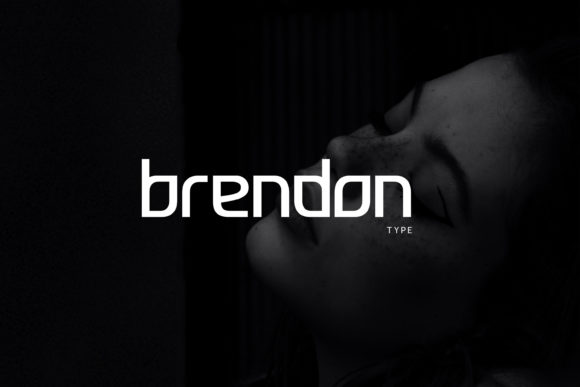
The Designer’s Delight: A Deep Dive into Brendon Font
I’ll never forget the time I was working on a project for a high-end fashion brand, and I was struggling to find the perfect font to match their elegant and sophisticated vibe. The client had a very specific idea of what they wanted, and I was determined to deliver. That’s when I stumbled upon Brendon Font, and it completely transformed my design. In this article, I’ll share my experience with Brendon Font, its features, and how to make the most of it in your designs.
An Honest Review of Brendon Font
Brendon Font is a remarkable display font that has won my heart with its peculiar elegance and grace. Here’s what I love about it:
• ✨ Elegant and sophisticated design, perfect for high-end projects
• ✅ Highly legible, even at large sizes
• 💫 Beautifully crafted to add a touch of luxury to your designs
However, no font is perfect, and Brendon Font has a few quirks:
• 🤔 Limited use for body text, as it’s primarily designed for display purposes
• ⚠️ May not be suitable for very small font sizes, as some details may get lost
The Story Behind Brendon Font
Brendon Font was designed by a renowned type designer who’s passionate about creating elegant and sophisticated fonts. The story goes that the designer was inspired by classic typography and wanted to create a font that would bring a touch of luxury to modern designs. And so, Brendon Font was born!
Font Name Brendon Font
Author BeeType
What is Brendon Font best used for? Brendon Font is best used for display purposes, such as headings, titles, and logos.
Is Brendon Font suitable for body text? No, Brendon Font is not suitable for body text, as it’s primarily designed for display purposes.
Is Brendon Font available in different weights? Yes, Brendon Font comes in various weights, allowing you to experiment with different styles and effects.